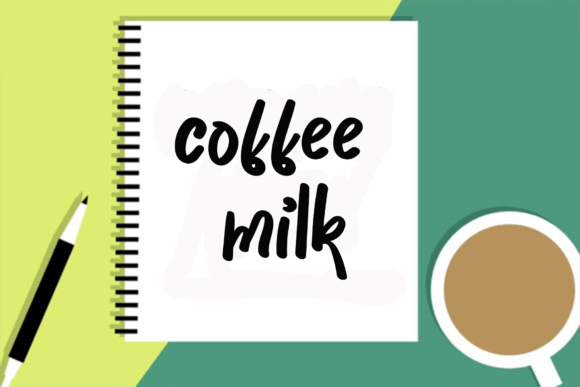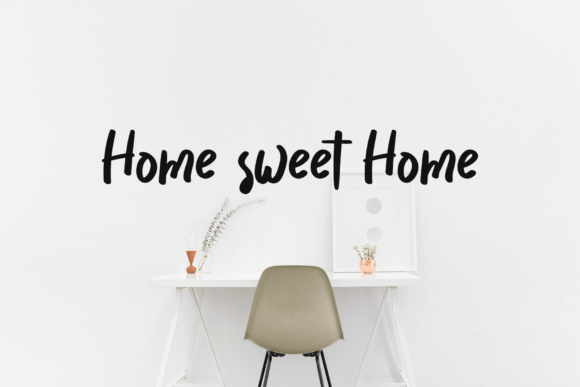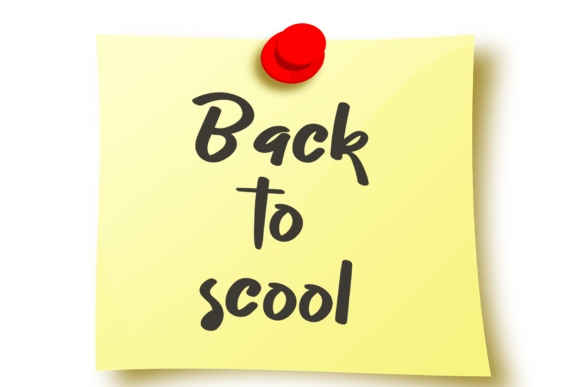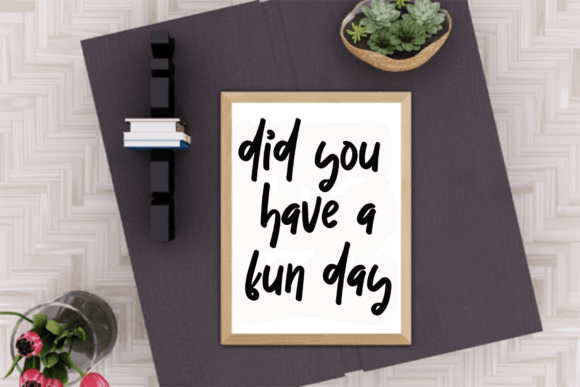
Winter is Coming Font
About Winter is Coming Font
“Winter Is Coming” is not just a typeface; it’s a delicately crafted handwritten font that exudes delicacy, grace, and a flowing aesthetic. With lovely and well-balanced qualities, this font seamlessly complements a wide range of styles, making it a versatile choice for various creative endeavors. Add “Winter Is Coming” to your most imaginative thoughts and witness how it breathes life into your designs.
The delicate strokes of “Winter Is Coming” create an atmosphere of sophistication, adding a touch of elegance to any project. Its graceful qualities make it suitable for a diverse array of styles, from formal to whimsical.
Imagine “Winter Is Coming” gracing invitations, each letter a testament to grace and charm. Its flowing nature adds a sense of enchantment, making it a captivating choice for bringing elegance to any project.
For creative endeavors, “Winter Is Coming” becomes the artistic brushstroke that enhances your imaginative thoughts. Its well-balanced qualities ensure seamless integration with various design elements, making it adaptable for expressing a unique and personalized vision.
In branding materials, “Winter Is Coming” becomes a distinctive typeface that leaves a lasting impression. Its delicate and flowing characteristics contribute to the creation of a visual identity that stands out.
In essence, “Winter Is Coming” is more than just a font; it’s a design companion that elevates your projects with its delicate, graceful, and flowing nature. Add this font to your creative toolkit and let it be the expressive force that brings your most imaginative thoughts to vivid life.